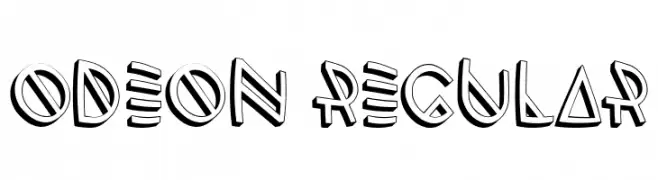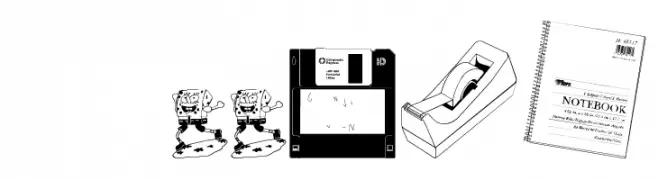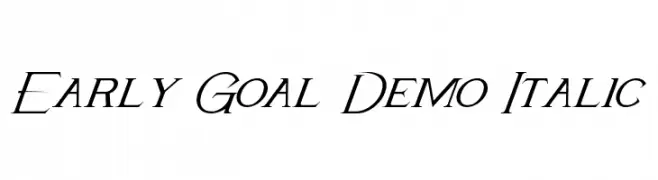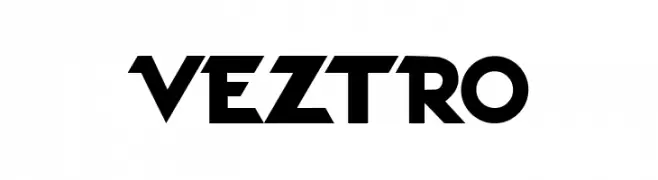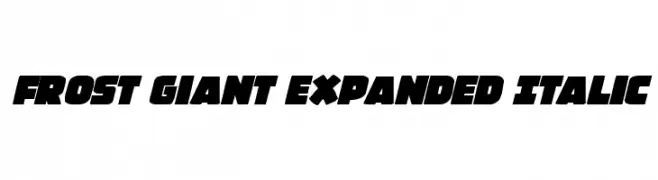
A detailed Blackletter font with ornate, medieval-inspired design.
A bold, expressive handwritten font with a dynamic brush-like texture.
A bold, geometric font with a three-dimensional effect and angular lines.
A playful, rounded font with a friendly and approachable style.
Illustrative display font made from office supply drawings.
A bold, futuristic font with a striped, geometric design.
A sophisticated italic font with elegant, flowing lines and refined curves.
A bold, italicized font with a gradient effect and futuristic design.
A bold, angular font with a futuristic and geometric design.
A bold, 3D sans-serif font with a modern and playful style.